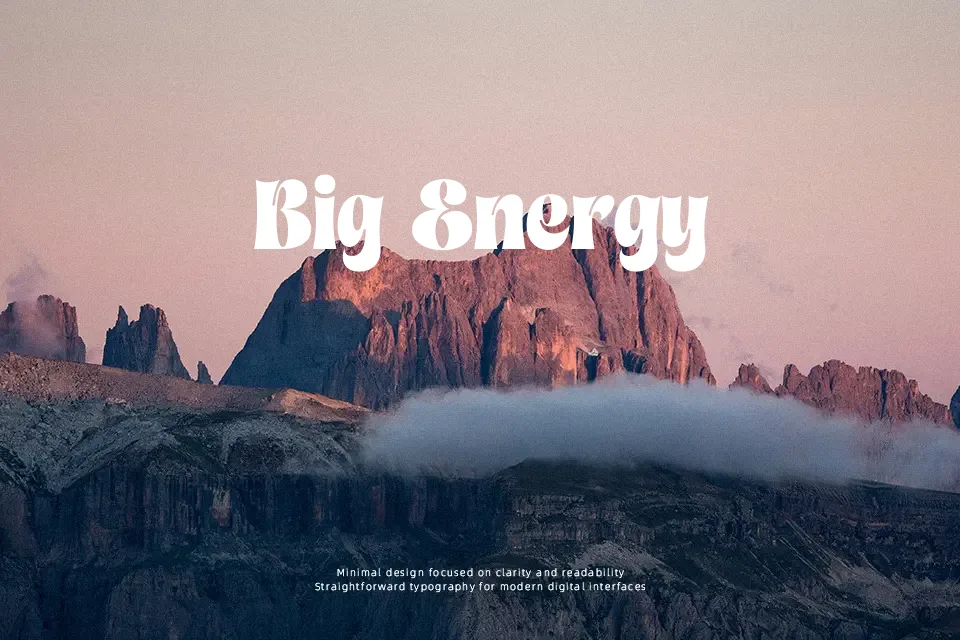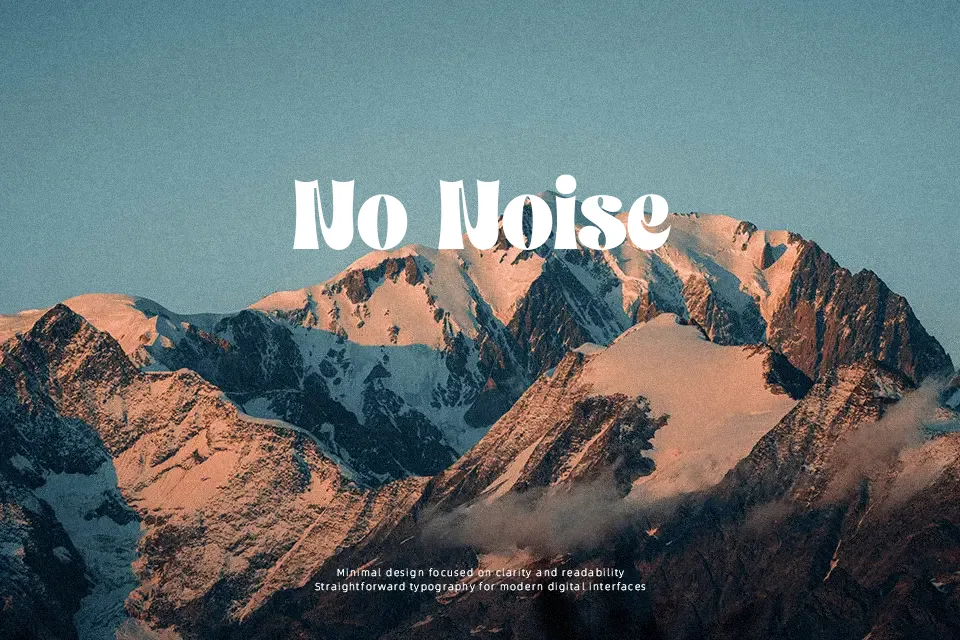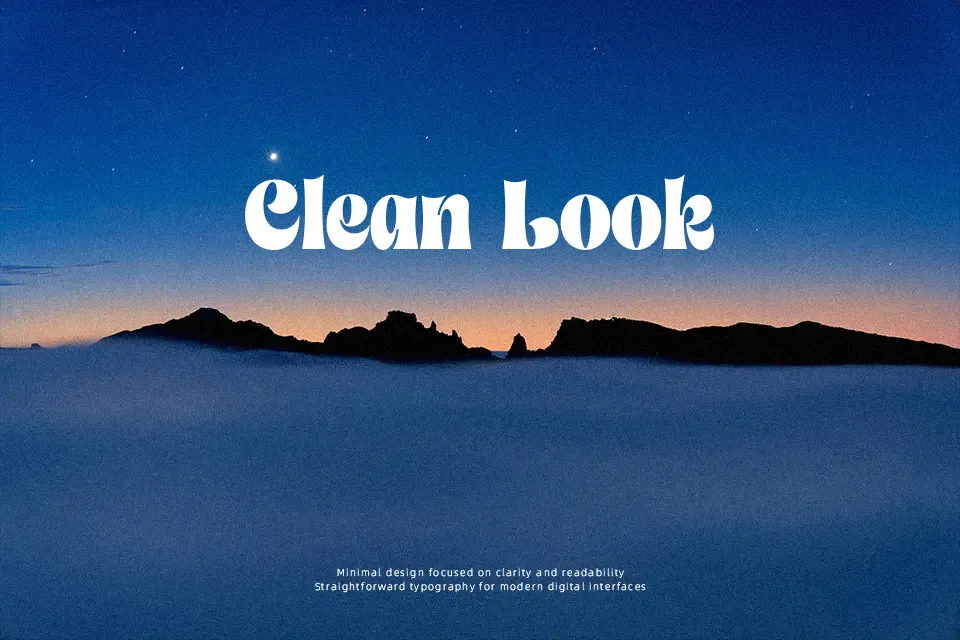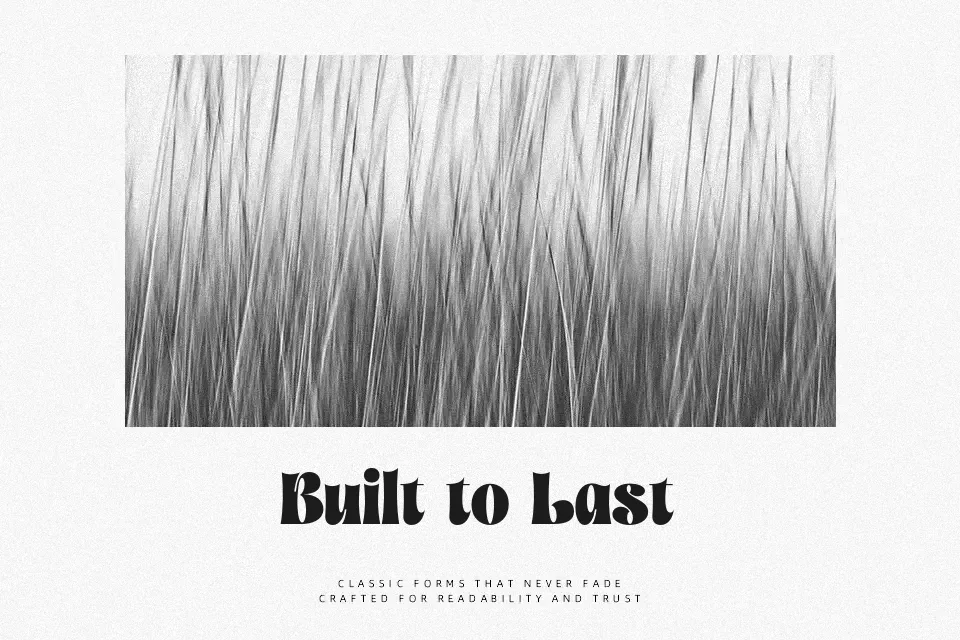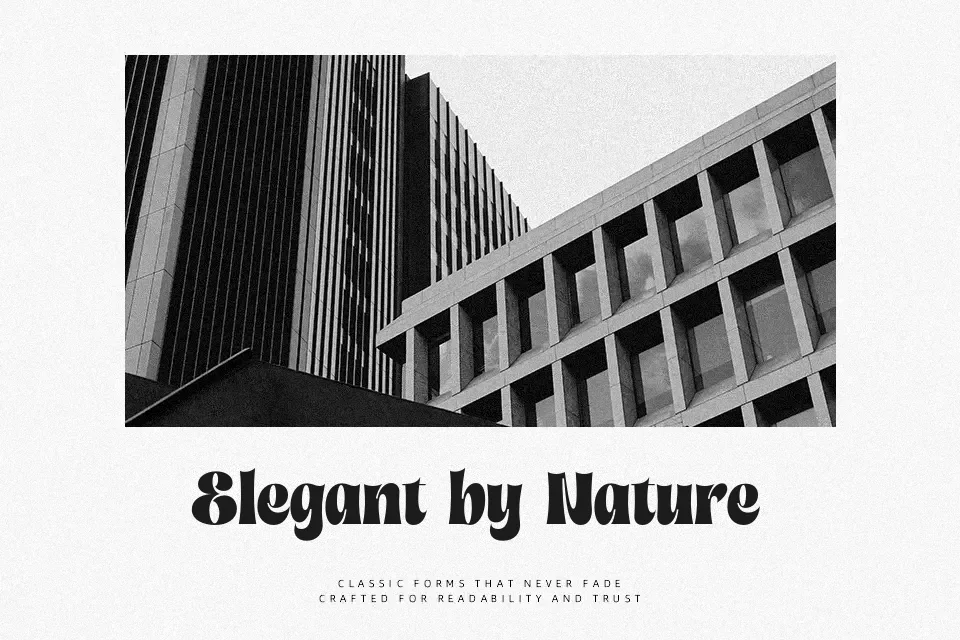
Tracy Queen Font
Tracy Queen Font establishes an energetic visual presence through extra-bold weights, pronounced contrast, and fluid, flared terminal curves. The letterforms exhibit generous horizontal proportions paired with tight spacing, producing a cohesive, rhythmically undulating text line at display scales. Across poster banners, album covers, and themed merchandise, the typeface delivers immediate punch while maintaining clear individual glyph recognition. However, the exaggerated stroke thickness and compact letter intervals cause interior counters to close up when rendered at smaller sizes, making the design ill-suited for dense body text or compact mobile interfaces. For maximum impact, the font functions best when set generously in large titles.
Best For: music festival posters, retro vinyl record sleeves, vintage apparel graphics, display product packaging
Not Ideal For: continuous body text, mobile interface labels, corporate annual reports, dense editorial layouts
Perfect for headline, logo, and music, with a bold and decorative style.